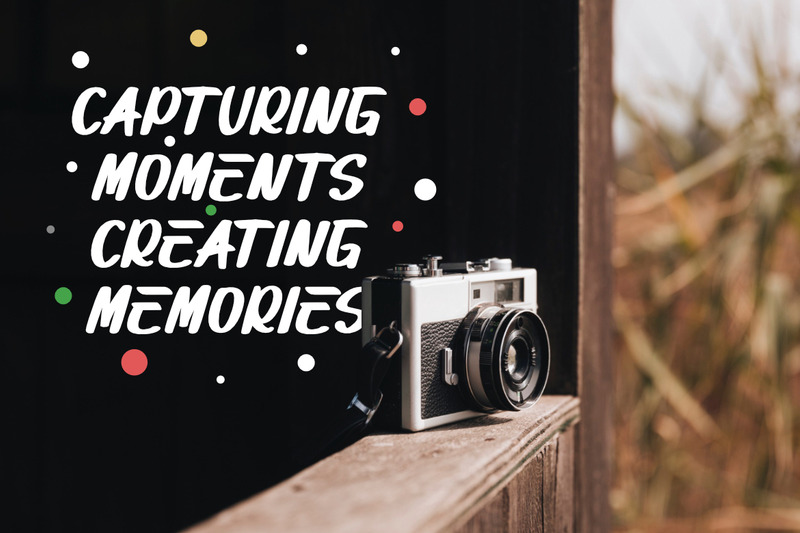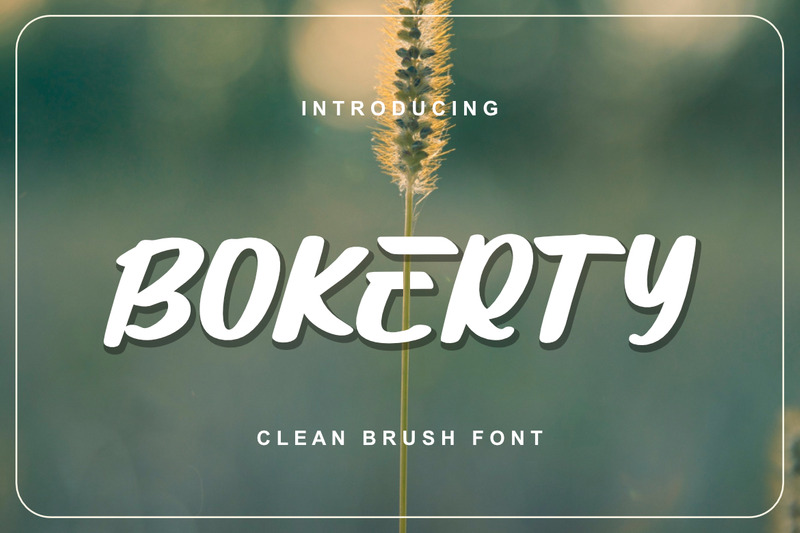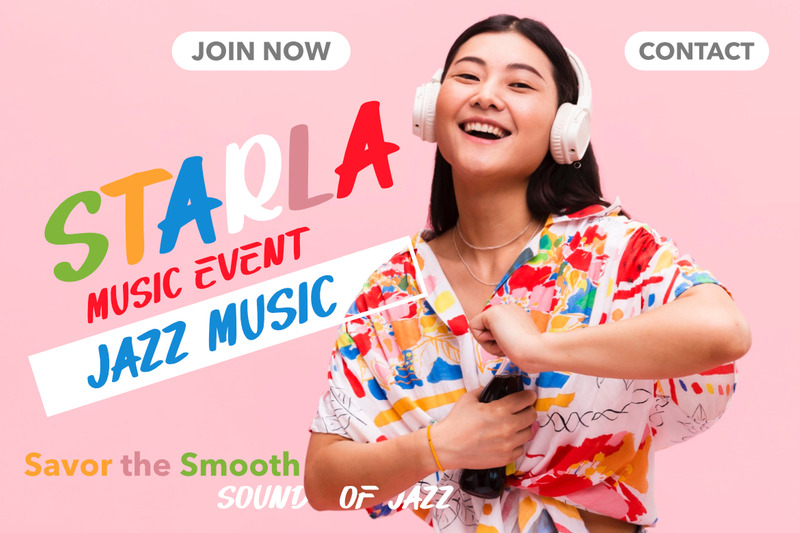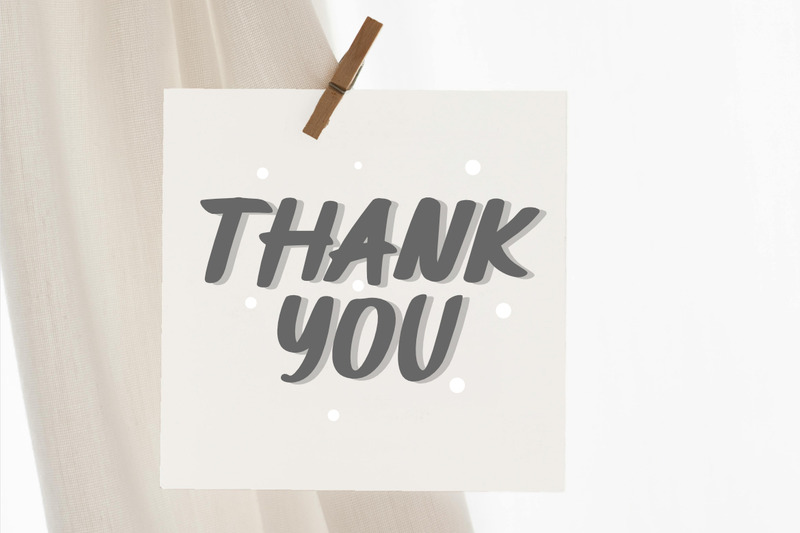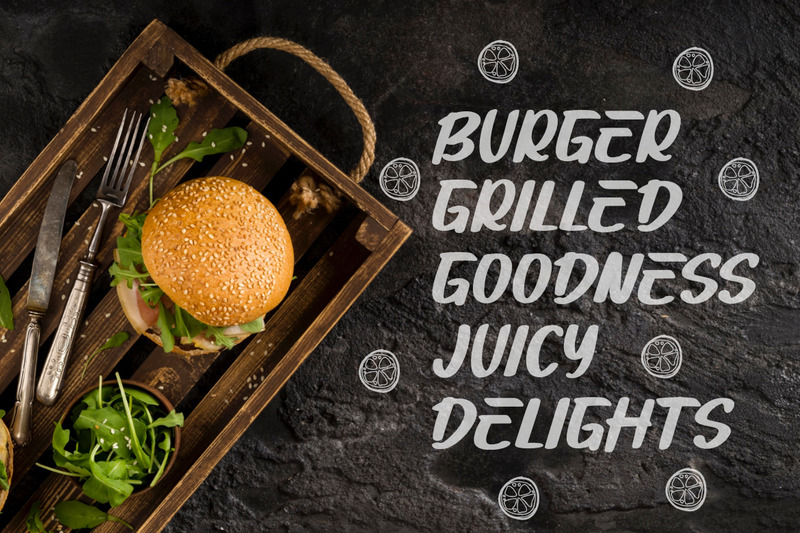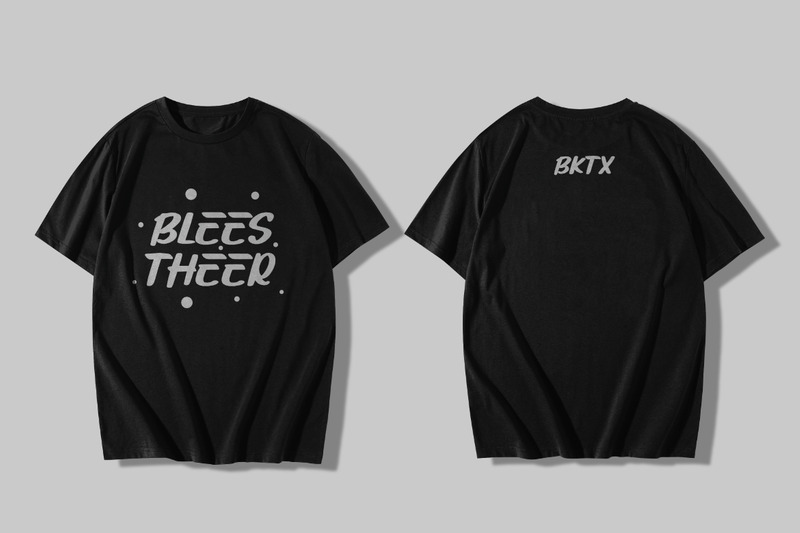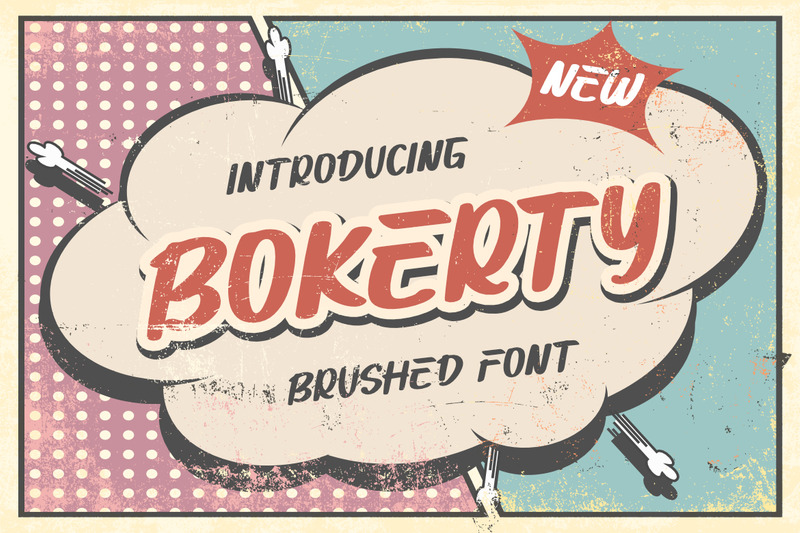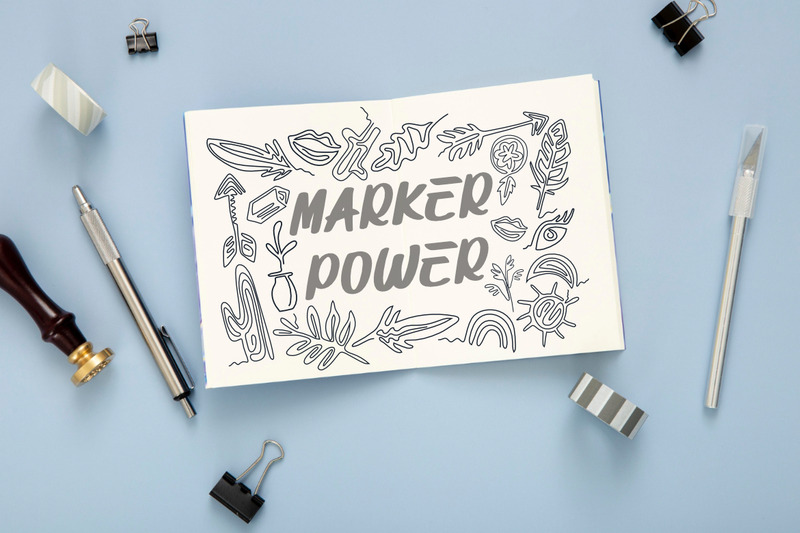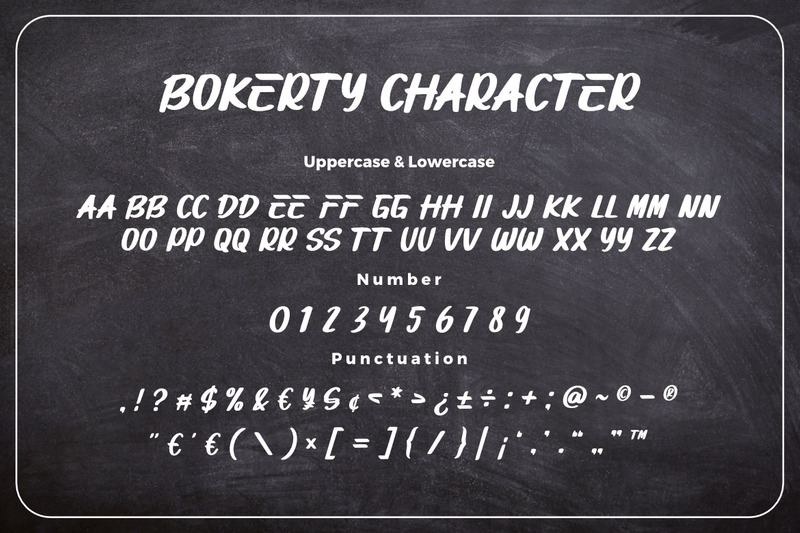
Bokerty a New Brushed Premium Font
**Bokerty a New Brushed Font**, This font is made with a high premium quality level which you can use as flyers, quotes, posters, banners, packaging, merchandise, logotypes and much more.
**FEATURES :**
* Uppercase
* Lowercase
* Number
* Punctuation
* Multilingual
* Opentype